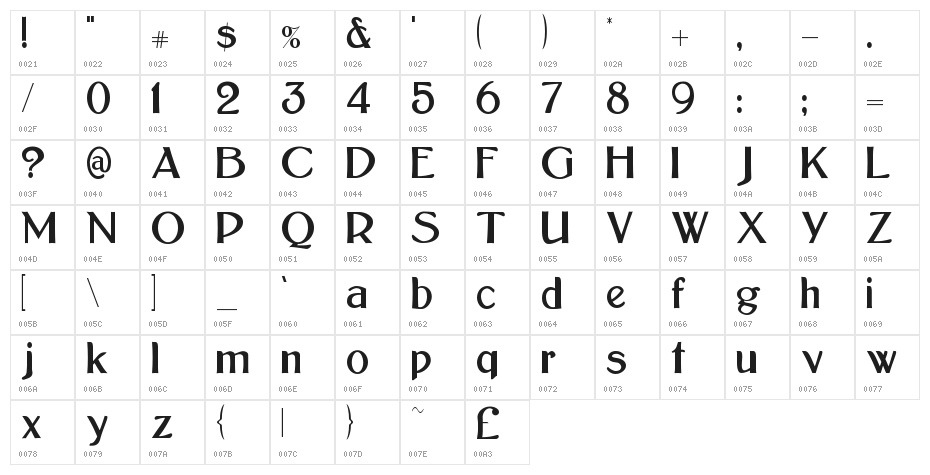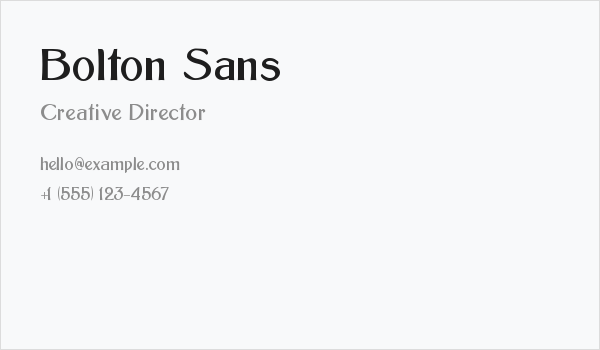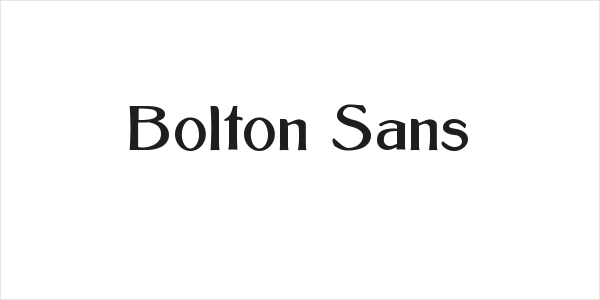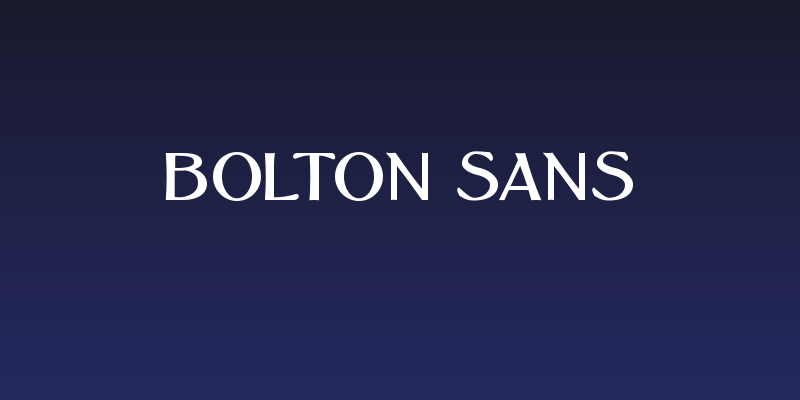
Bolton Sans Font
Bolton Sans Description
This font features a unique blend of modern and classic elements, characterized by its slightly curved and angular strokes. The uppercase letters exhibit a strong presence with a slight slant, giving them a dynamic and energetic feel. The lowercase letters maintain a consistent style, with rounded edges that add a touch of softness. The numerals are bold and clear, ensuring readability. Special characters are well-integrated, maintaining the overall aesthetic. This font is versatile, suitable for both digital and print media, offering a distinctive look that stands out.
| Proposed Projects | Ideal for branding, advertising, and editorial design projects that require a modern yet classic touch. |